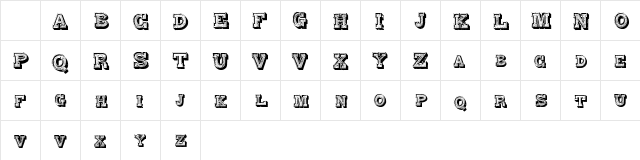
Complete Alphabet Fantasie Regular glyph index. Displaying only characters natively supported by Alphabet Fantasie Regular font.
Alphabet Fantasie is a composed and adaptable typeface that performs quietly and consistently across a wide range of design contexts.
Who designed the Alphabet Fantasie Regular font?
This font was published by Paulo W. Check the technical specs section for copyright and designer details.